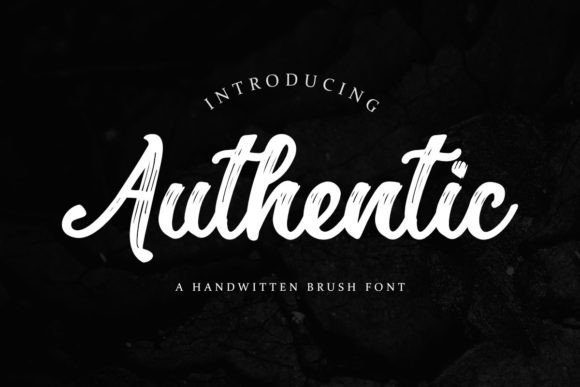
The Power of Authentic: Elevate Your Designs with a Timeless Handwritten Brush Font
Have you ever been in the midst of a design project, pouring your heart and soul into every detail, only to realize that something’s missing? You’re not alone! I recall a particularly frustrating experience while working on a logo design for a client who wanted a personal, handcrafted feel. After scouring the internet for hours, I stumbled upon the Authentic font, and it was love at first sight! 💕 In this article, we’ll dive into the world of Authentic, a bold, classic, elegant, cursive natural handwritten brush font that’s sure to transform your designs.
An Honest Review of Authentic
So, what makes Authentic so special? Let’s take a closer look:
• ✨ Unique and Expressive Style: Authentic boasts a distinctive, handcrafted feel that’s perfect for adding a personal touch to your designs.
While Authentic is an exceptional font, it’s not without its quirks:
• 🤔 Limited Character Set: Some users may find the character set a tad limited, particularly when it comes to specialty characters.
• ⚠️ Occasional Kerning Issues: As with any font, you may encounter kerning issues in certain design software or platforms.
The Story Behind Authentic
Authentic was inspired by the look and feel of writing with a Procreate brush style. The font’s creator aimed to capture the essence of natural, handwritten brush strokes, resulting in a unique and expressive font that’s perfect for adding a personal touch to your designs.
What is Authentic font? Authentic is a bold, classic, elegant, cursive natural handwritten brush font designed to add a personal touch to your designs.